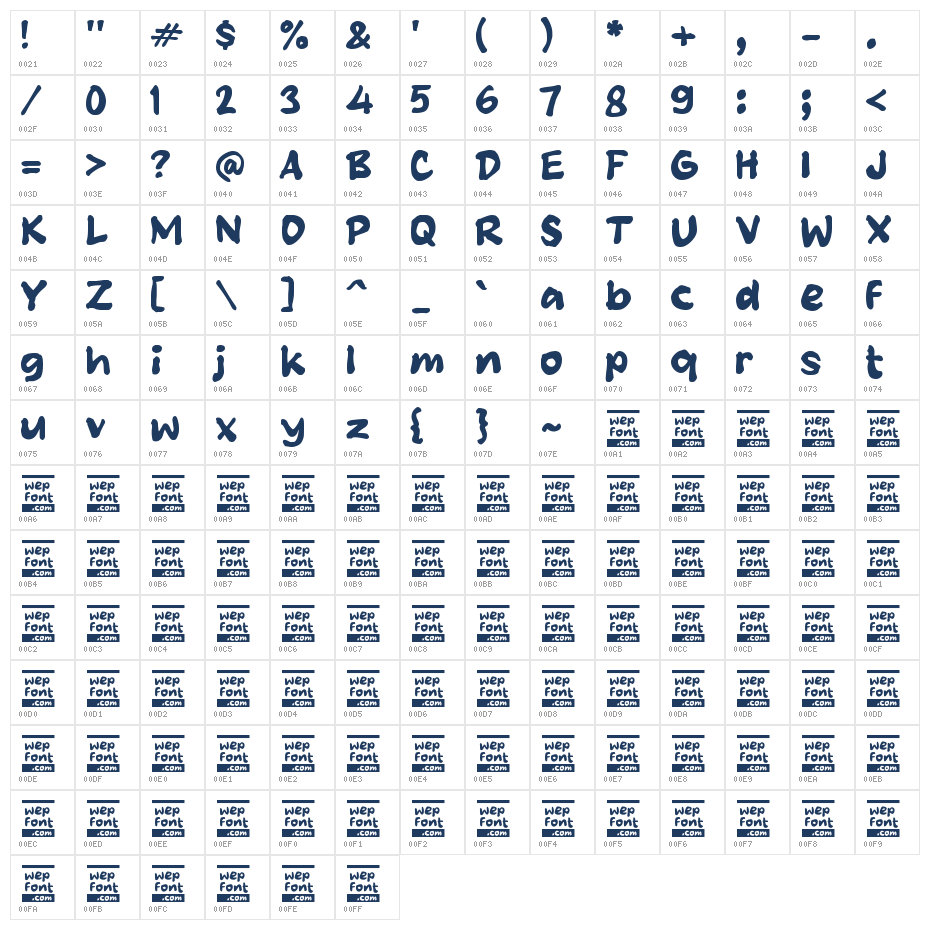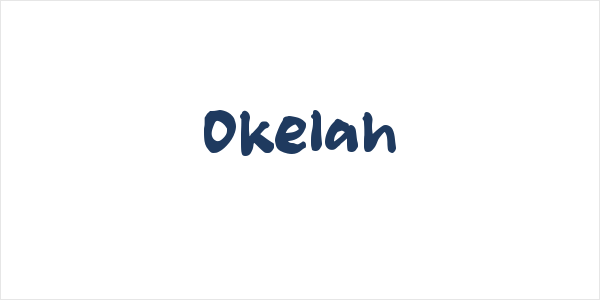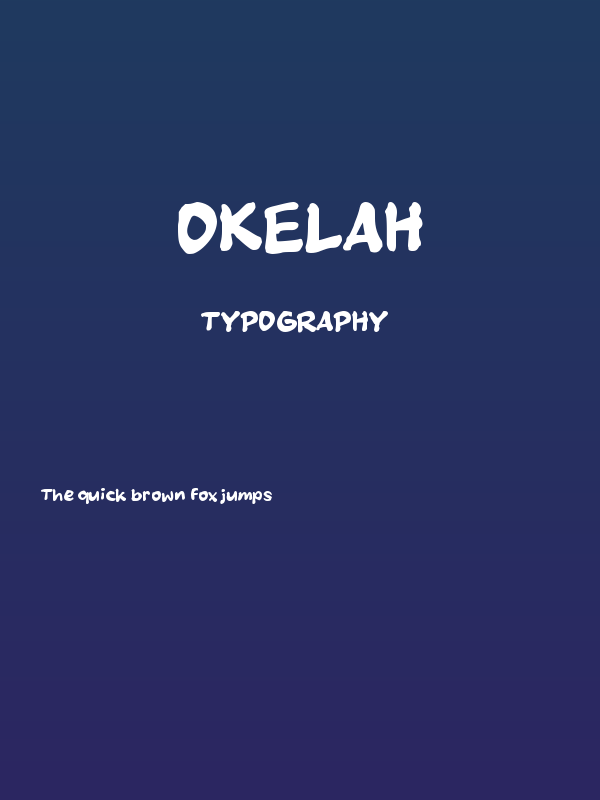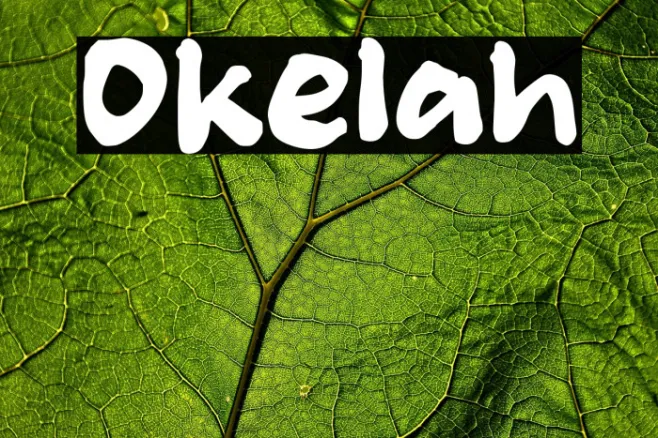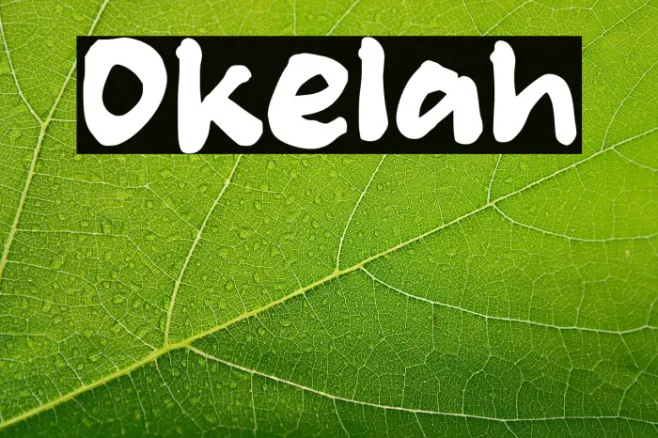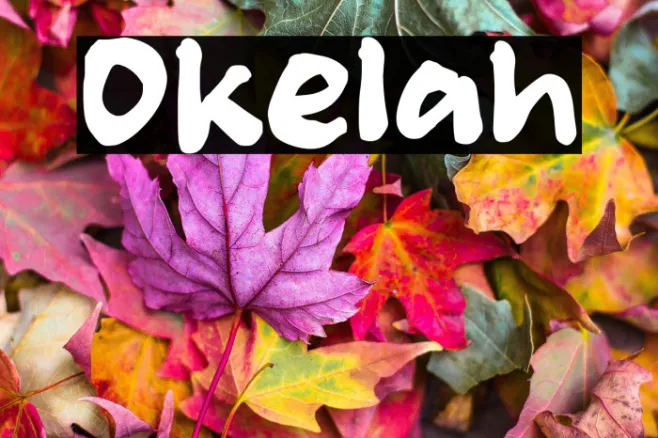
Okelah Font
Okelah Description
A playful, bold, handwritten style font with rounded edges and a casual appearance.
| Overall Style | Casual, Playful, Handwritten |
| Use Case | Headlines, Posters, Logos, Invitations |